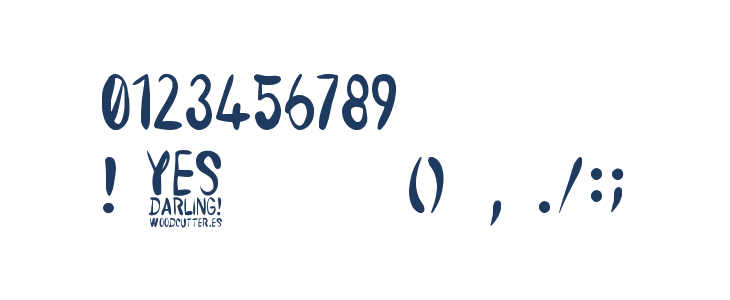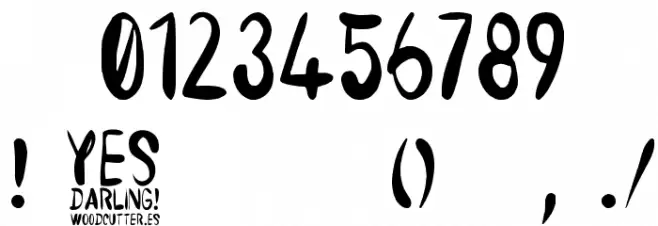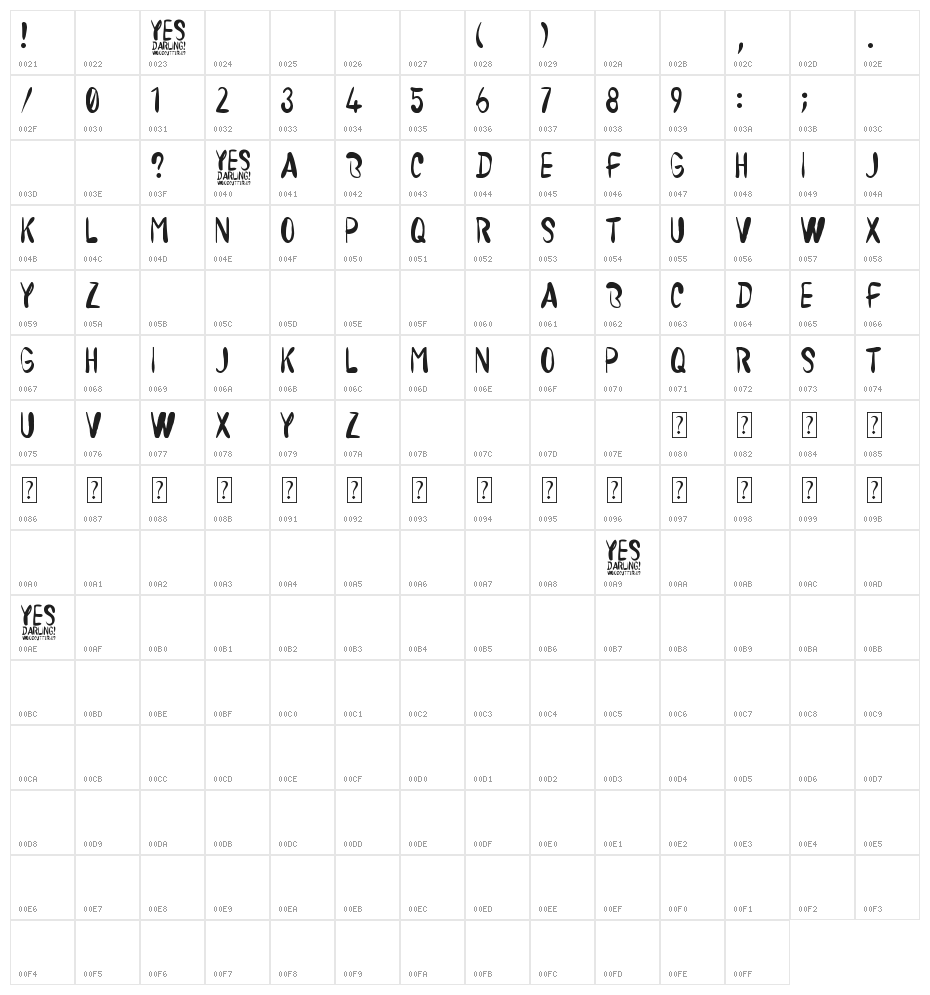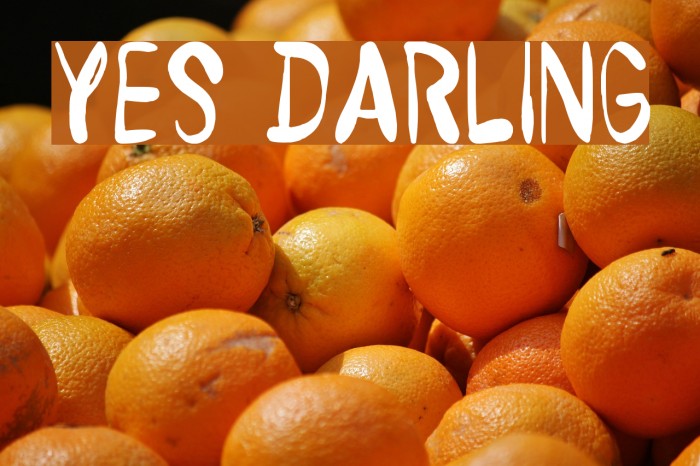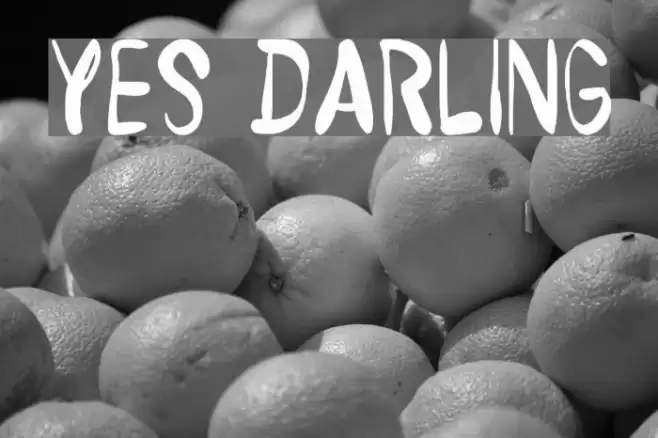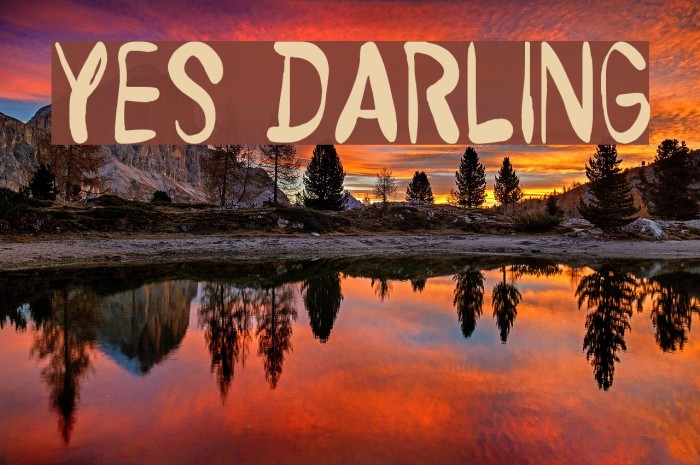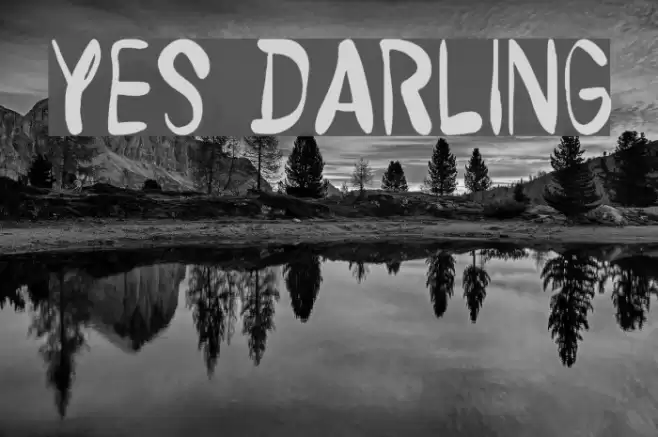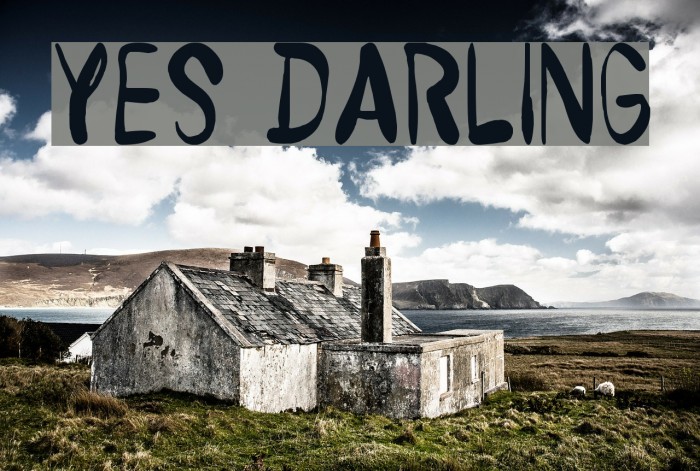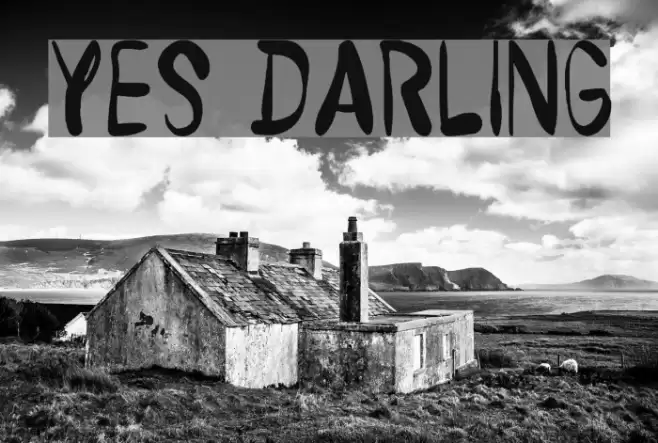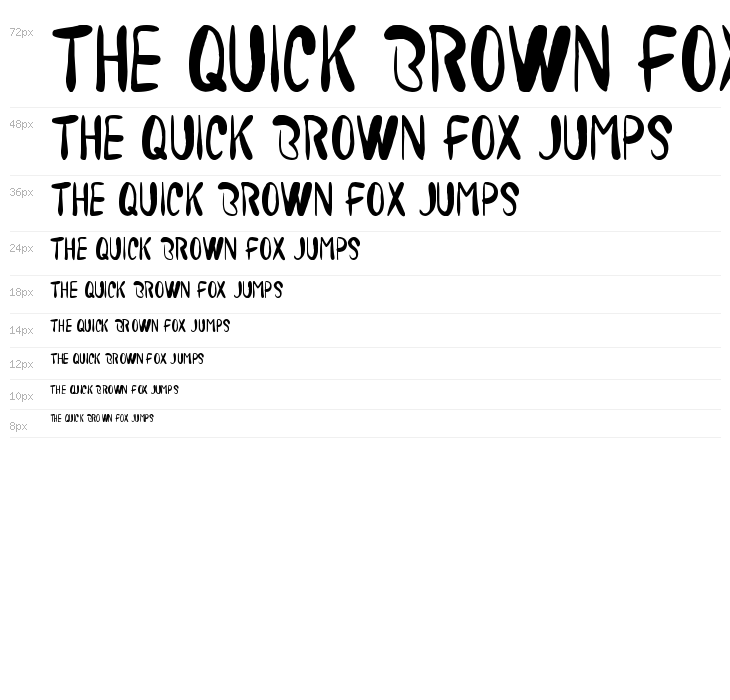
Yes Darling Font
Yes Darling Description
This font features a playful and whimsical style, characterized by its bold and irregular strokes. The letters have a hand-drawn appearance, with varying thicknesses that give it a lively and dynamic feel. The uppercase and lowercase letters maintain a consistent style, with rounded edges and a slightly uneven baseline, adding to its charm. The numerals and special characters follow the same playful design, making it suitable for creative and informal projects. Its unique style is perfect for capturing attention and conveying a sense of fun and creativity.